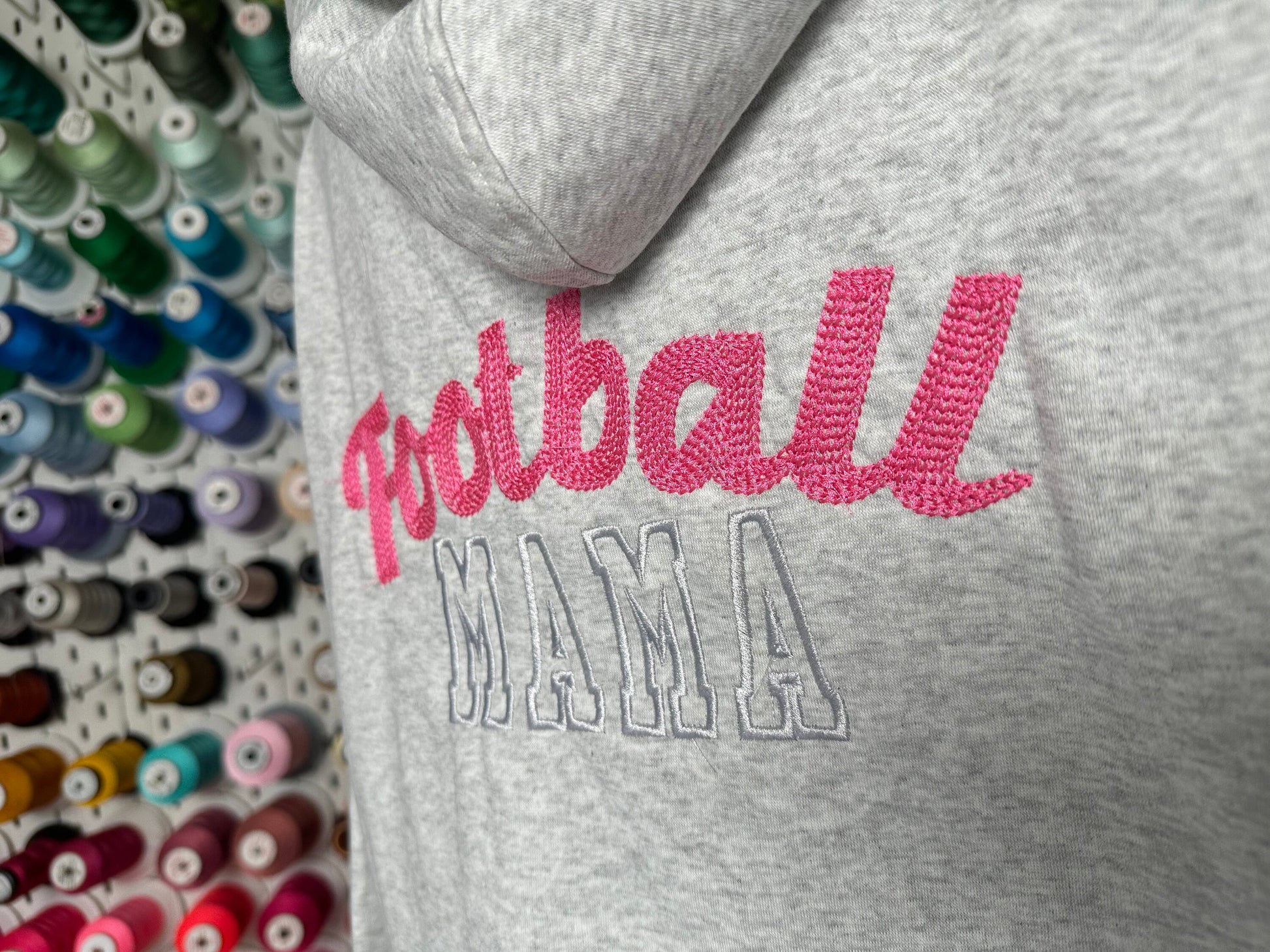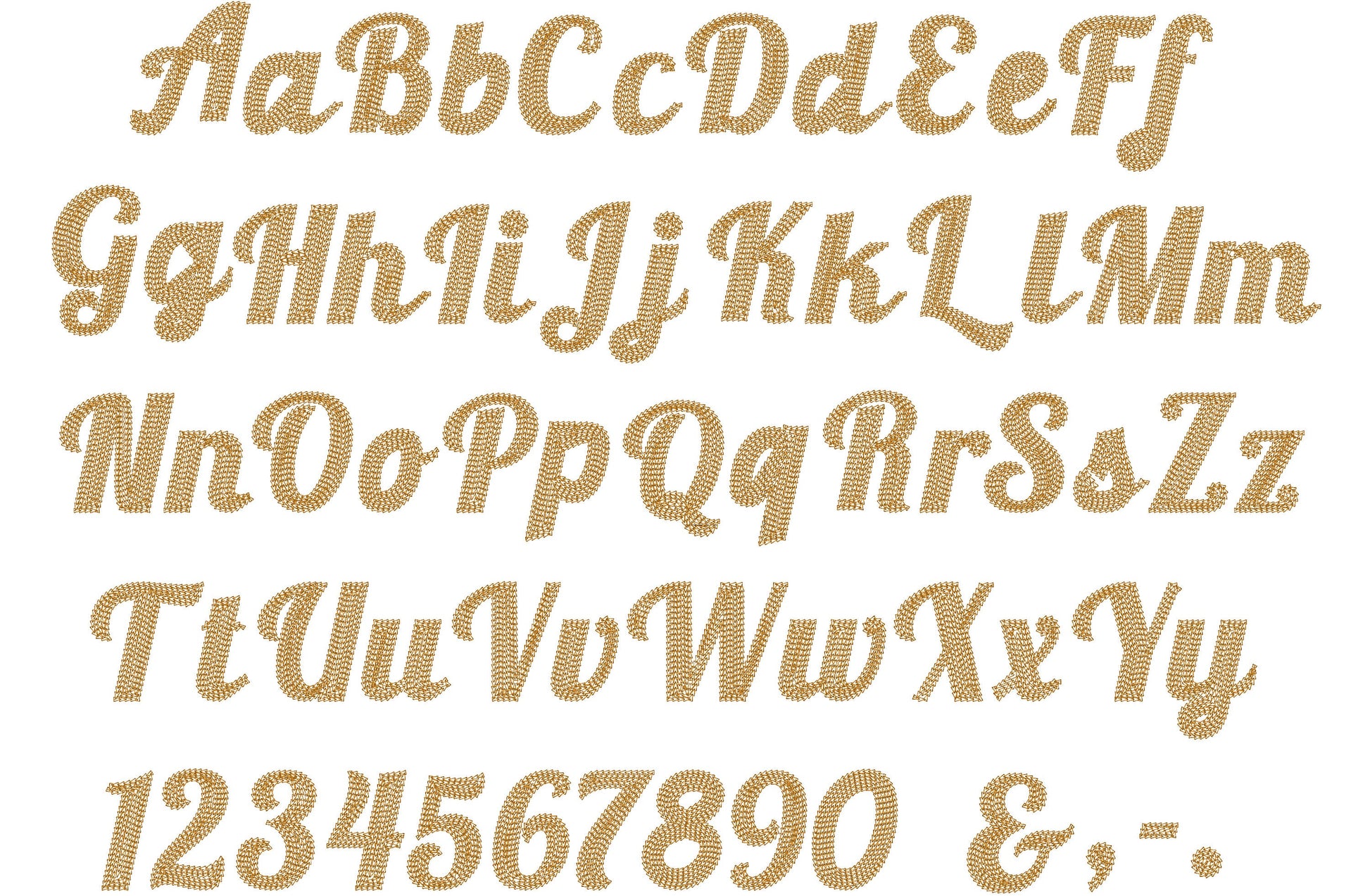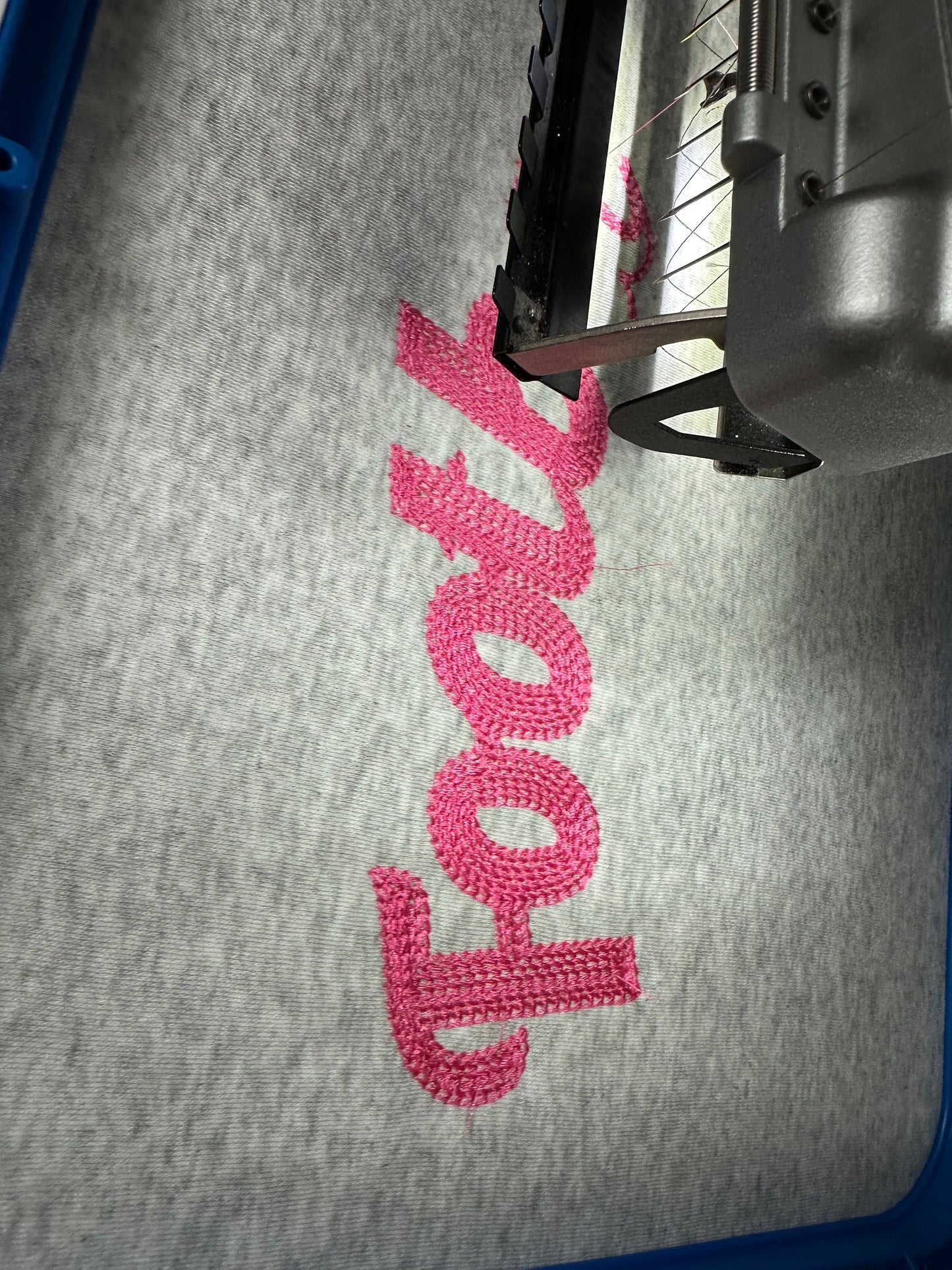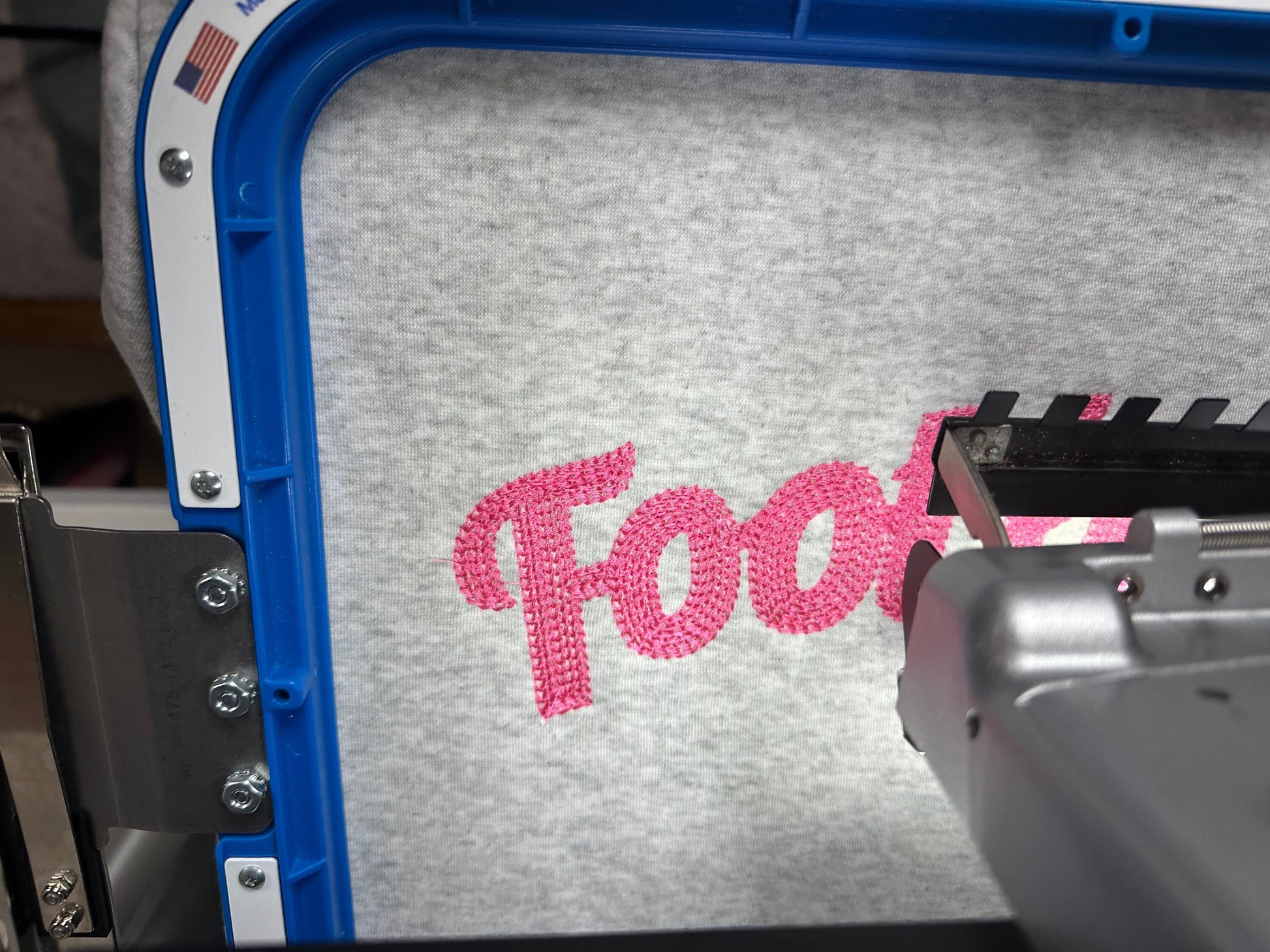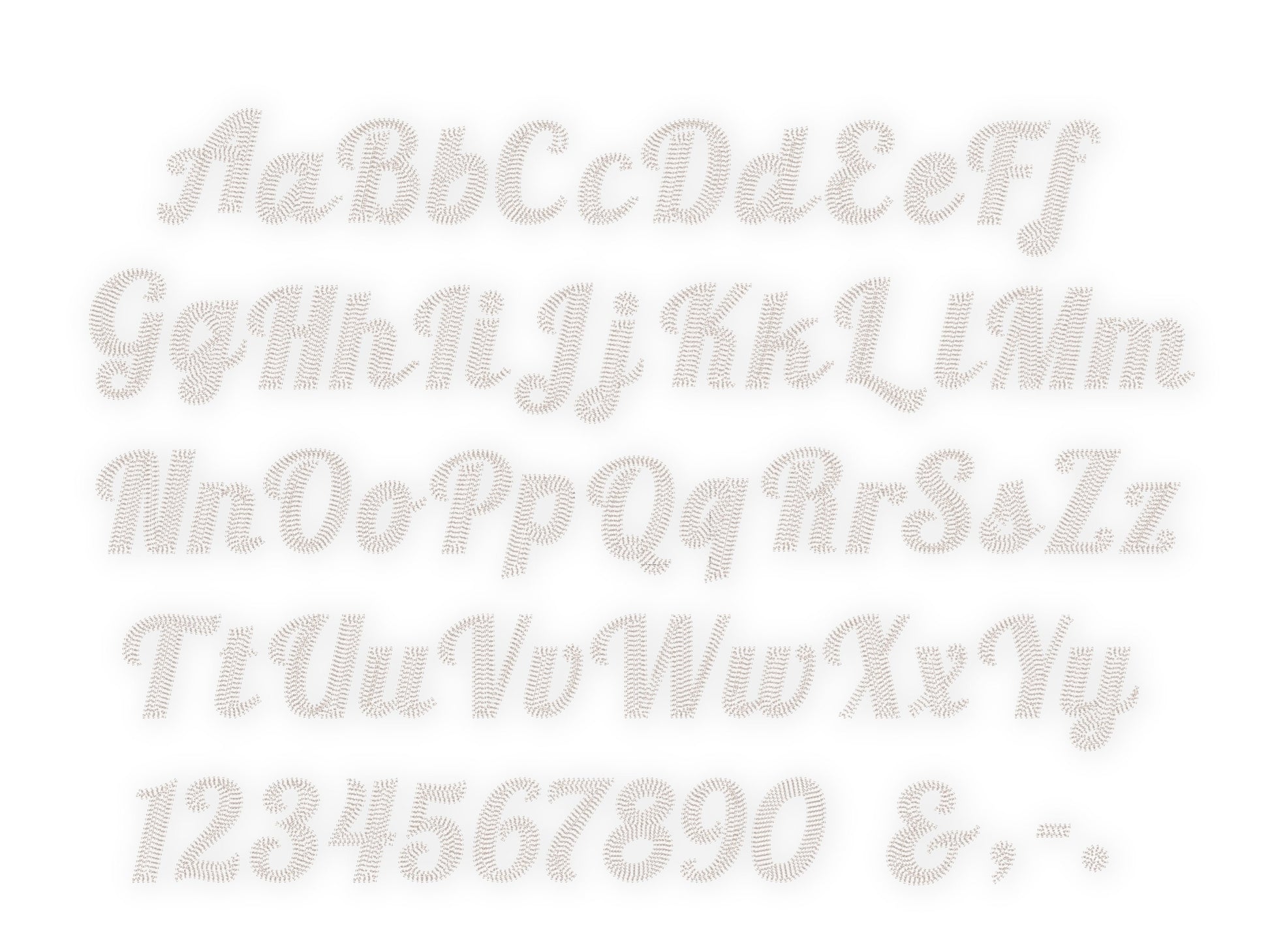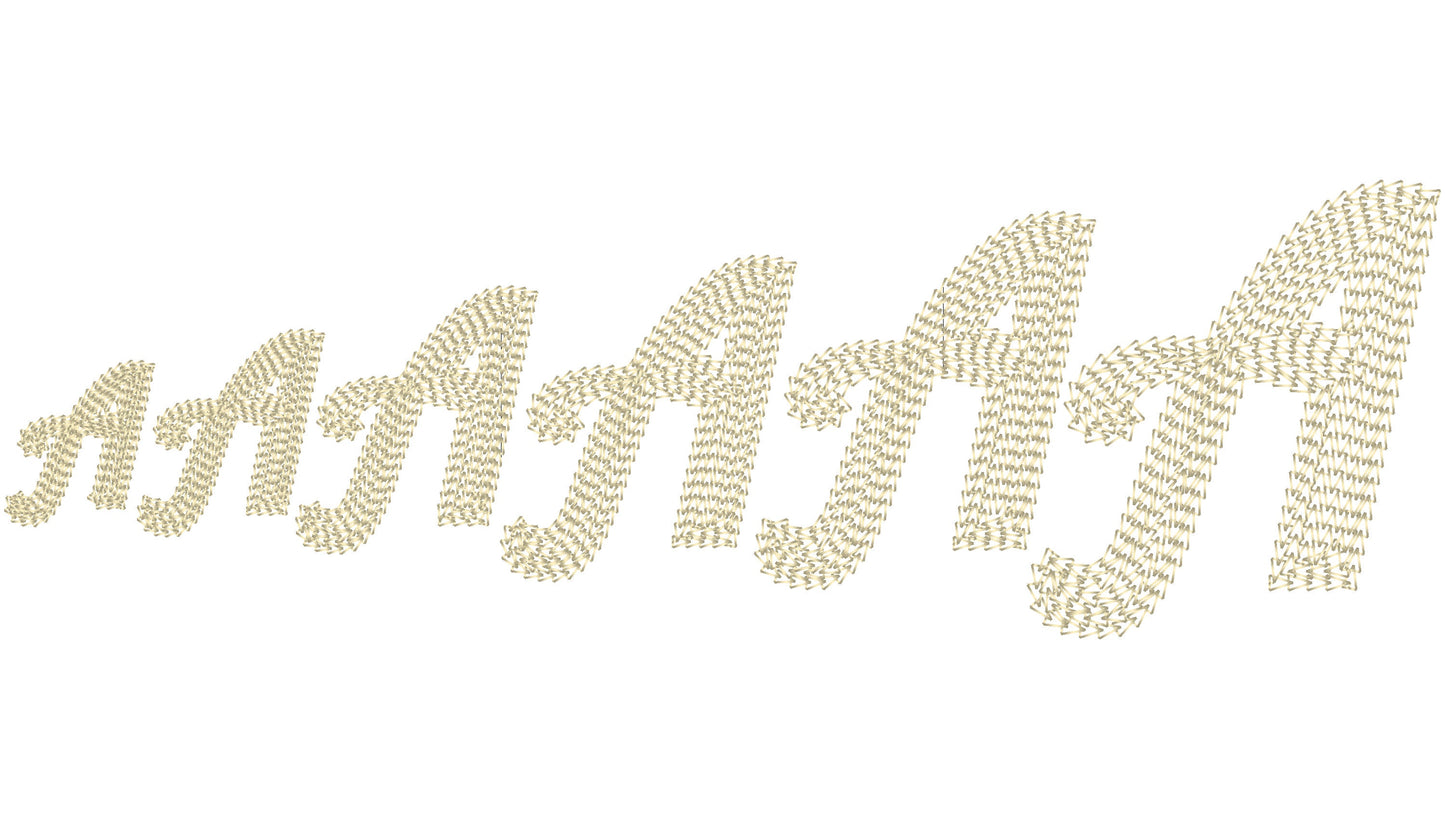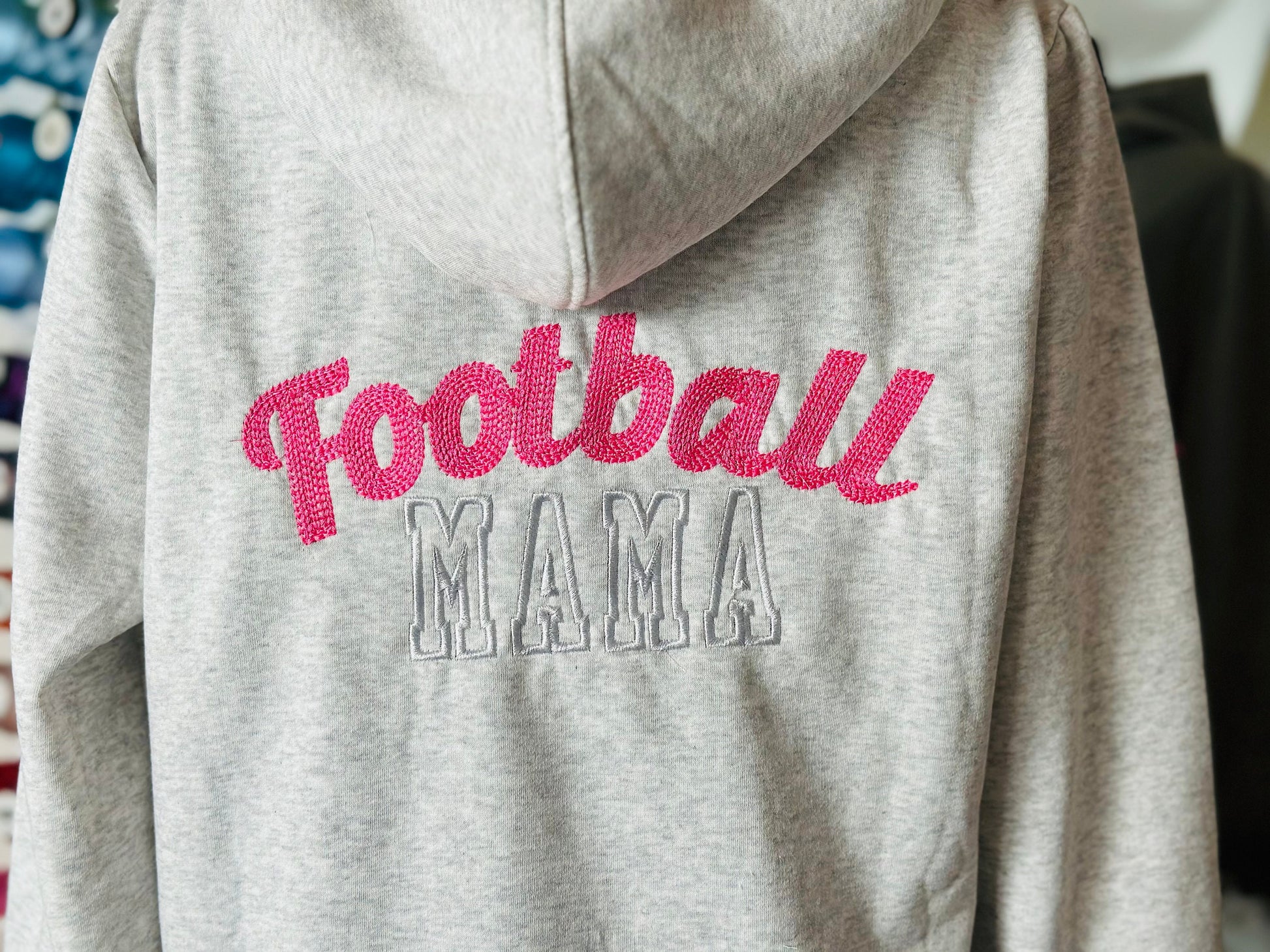
Or click to open the linkA wide cursive chain stitch font with a hand-embroidered look, for names and monograms on sweaters, jackets and bags.
Chain fill gives each letter a handmade texture. Uppercase and lowercase letters, numbers and punctuation in six sizes: 1.5, 2, 2.5, 3, 3.5 and 4 inches.